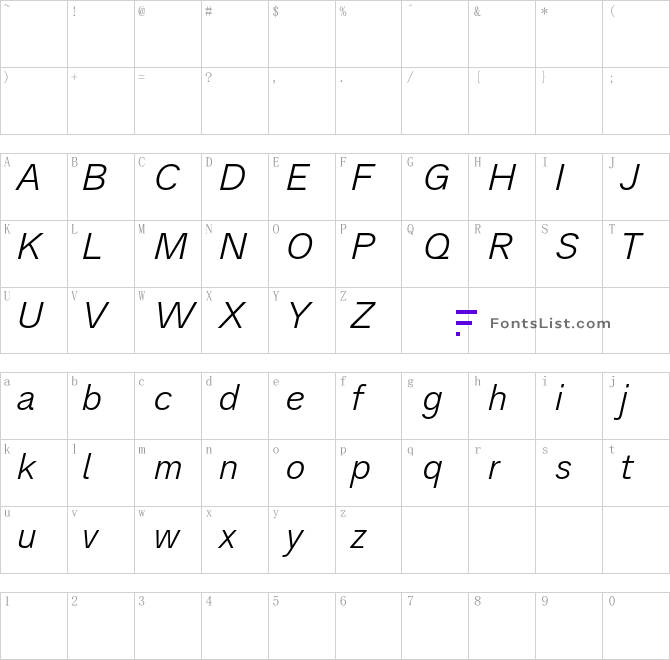
- Font Name:Analogue Reduced
AnalogueReduced-LightOblique.otf is a very beautiful artistic font, AnalogueReduced-LightOblique.otf is widely used in the design and printing of various books and pictures,AnalogueReduced-LightOblique.otf has a strong visual impact,AnalogueReduced-LightOblique.otf is a commonly used font in newspapers, magazines and books, and is used in posters, e-commerce Poster design, store design, logo design, font design and other fields.AnalogueReduced-LightOblique.